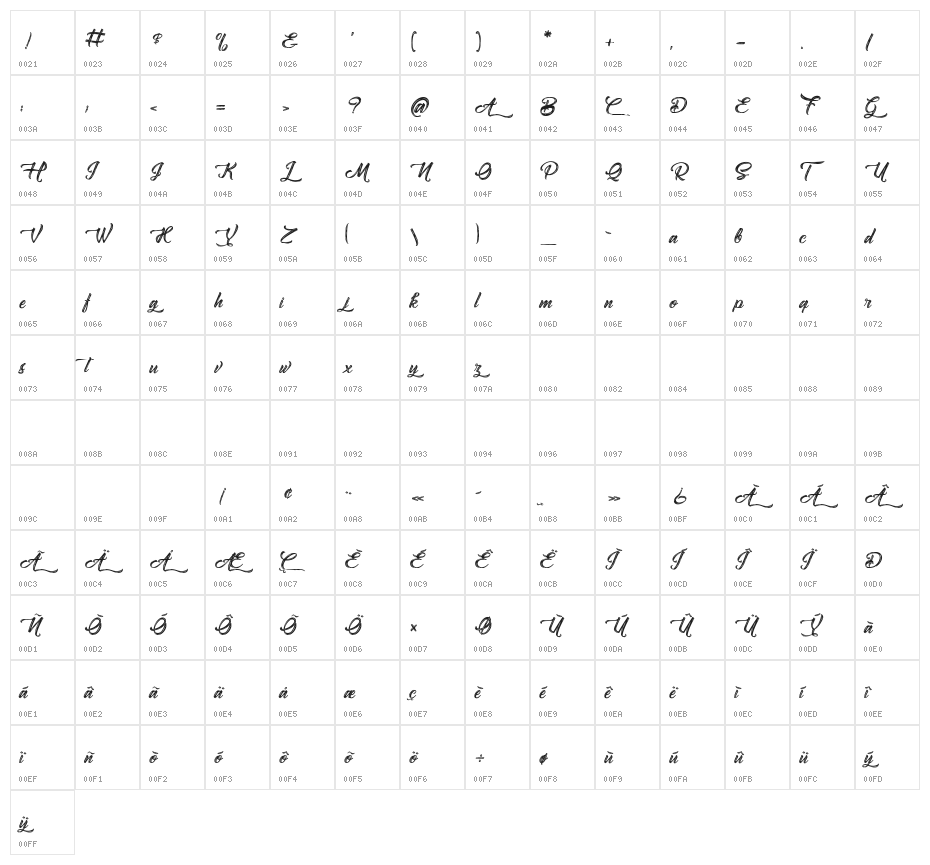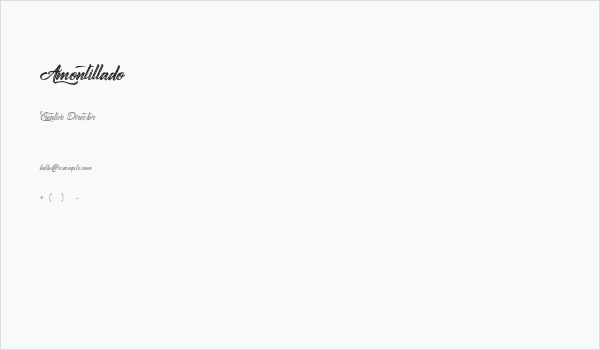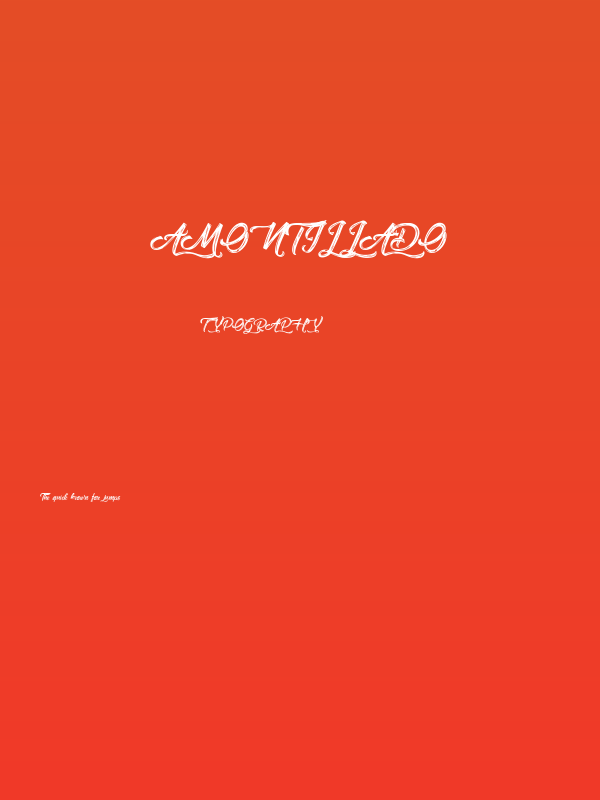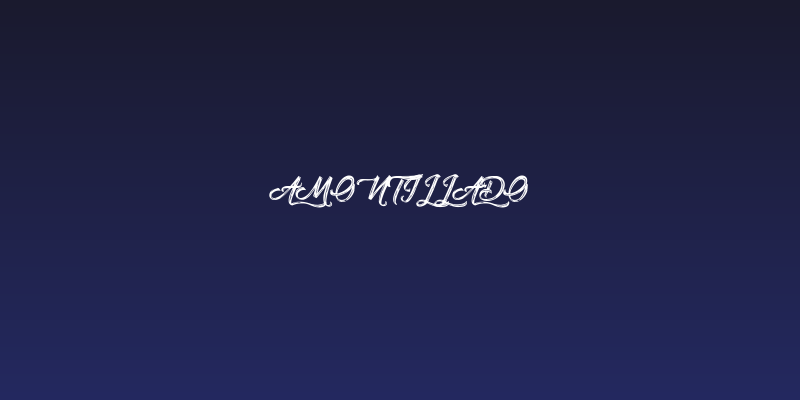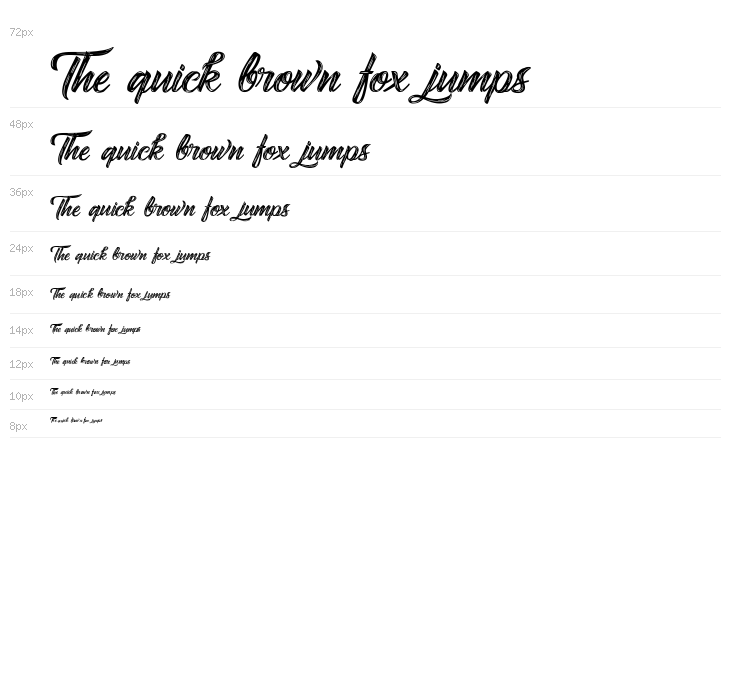
Amontillado Font
Amontillado Description
This font exudes elegance and sophistication with its intricate, flowing script style. The characters are adorned with elaborate swashes and flourishes, giving it a highly decorative appearance. The uppercase letters are particularly ornate, featuring extended loops and curves that enhance their visual appeal. The lowercase letters maintain a consistent style, with smooth connections between strokes, creating a seamless flow. The numbers and special characters are equally stylized, ensuring a cohesive look across all elements. This font is ideal for projects that require a touch of luxury and refinement.
| Use Case | Logos, Invitations, Headlines |
| Proposed Projects | Ideal for wedding invitations, luxury branding, high-end product packaging, and elegant event signage. |